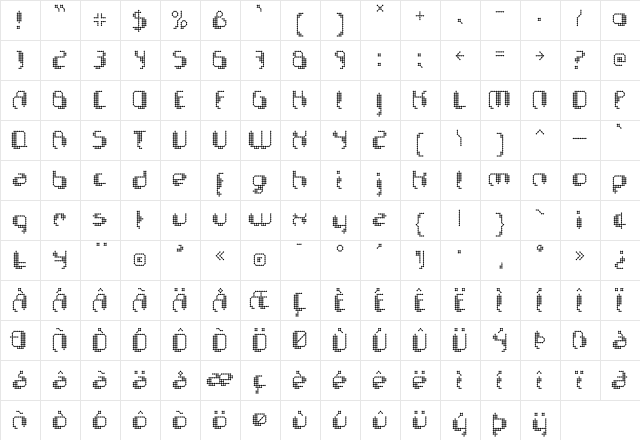
Complete Chemo DotStroke glyph index. Displaying only characters natively supported by Chemo DotStroke font.
Chemo is rooted in pixel-grid construction, making it a natural fit for game UI, retro computing aesthetics, and digital nostalgia projects.